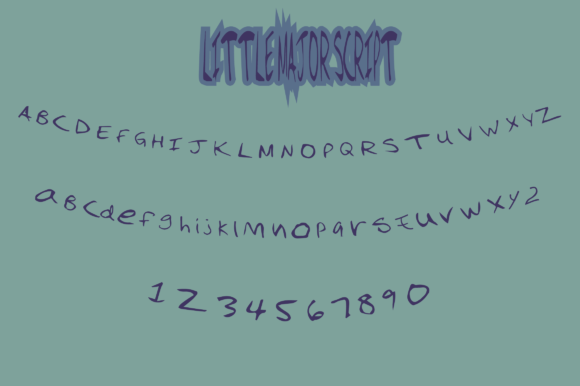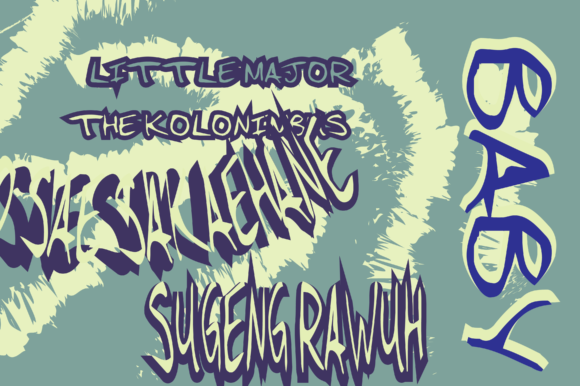
Introduction to Little Major Font
Little Major is a nice display font that has a beautiful and natural feel to it.
You can add it to a wide set of products including posters, social media posts, greetings and thank you cards book and music album covers, movie titles, etc.